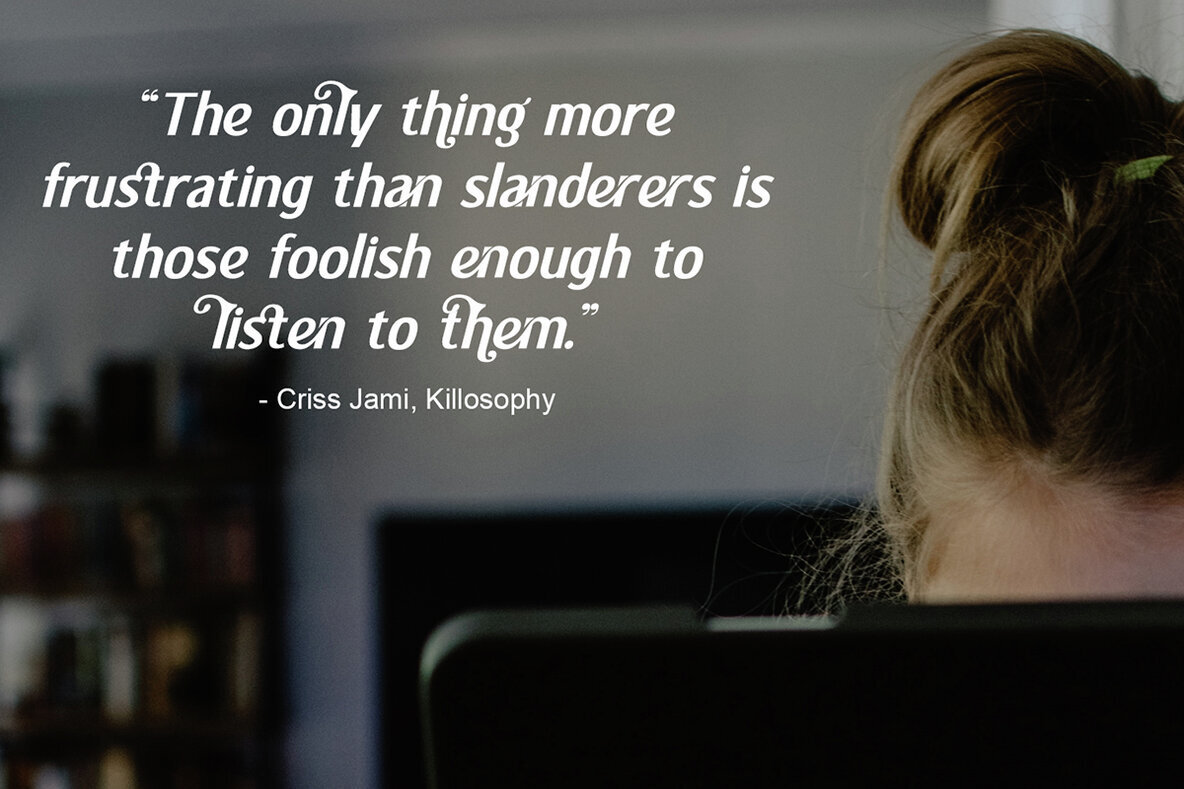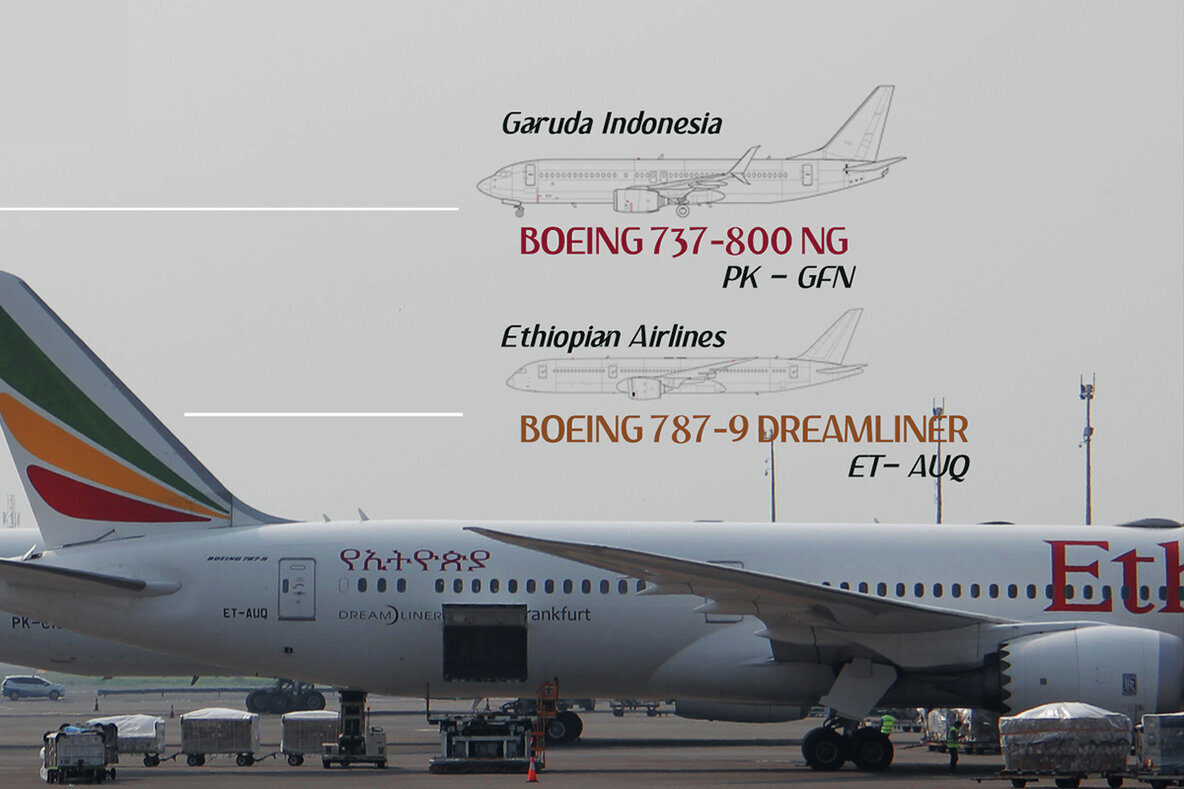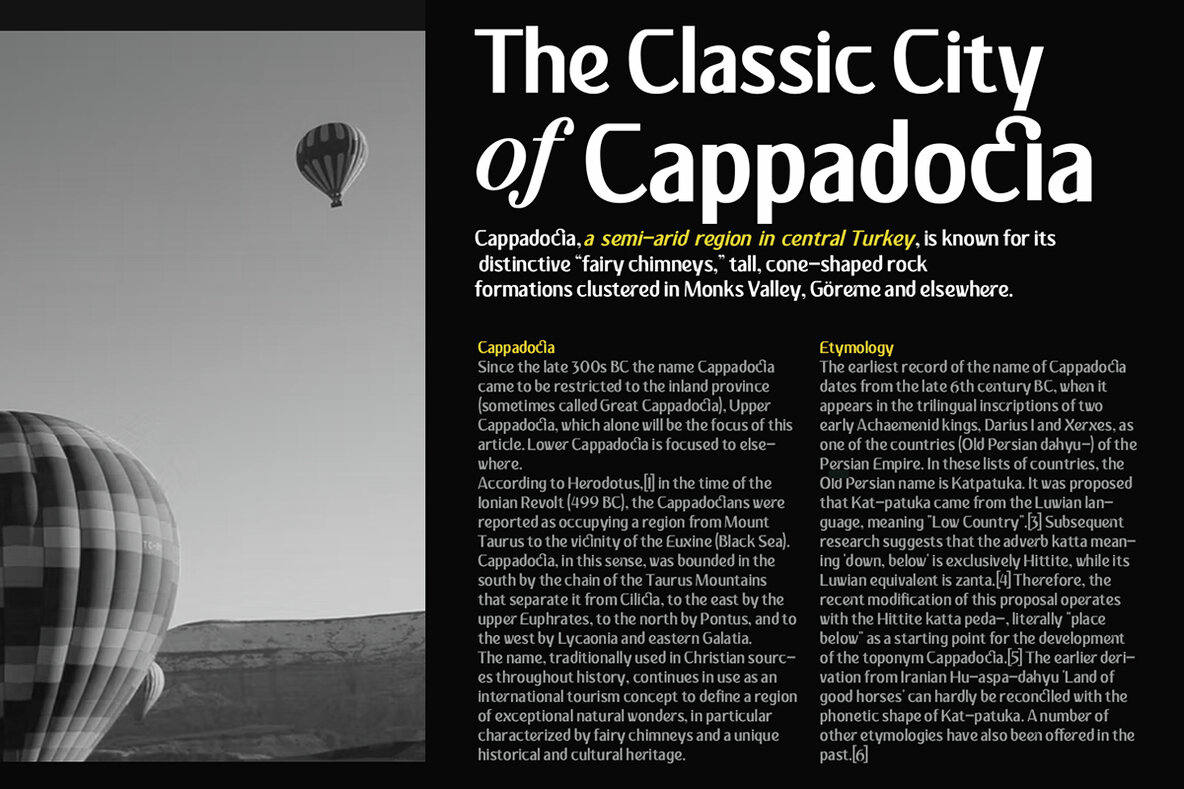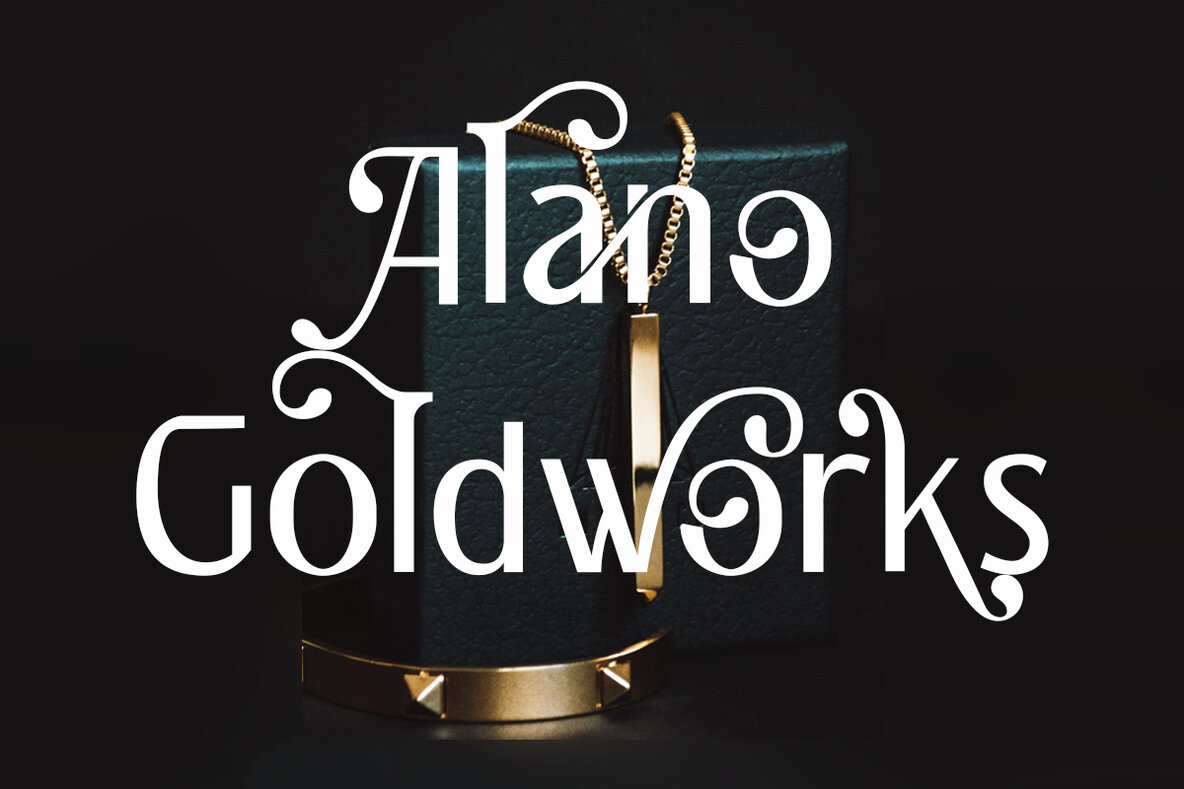
Magnolia Rainflower Font
Magnolia Rainflower
Magnolia Rainflower Sans, developed by Lettercorner Studio, is a uniquely crafted sans serif font that adds a touch of elegance to any design project.Magnolia Rainflower by Lettercorner Studio: A Versatile Sans Serif